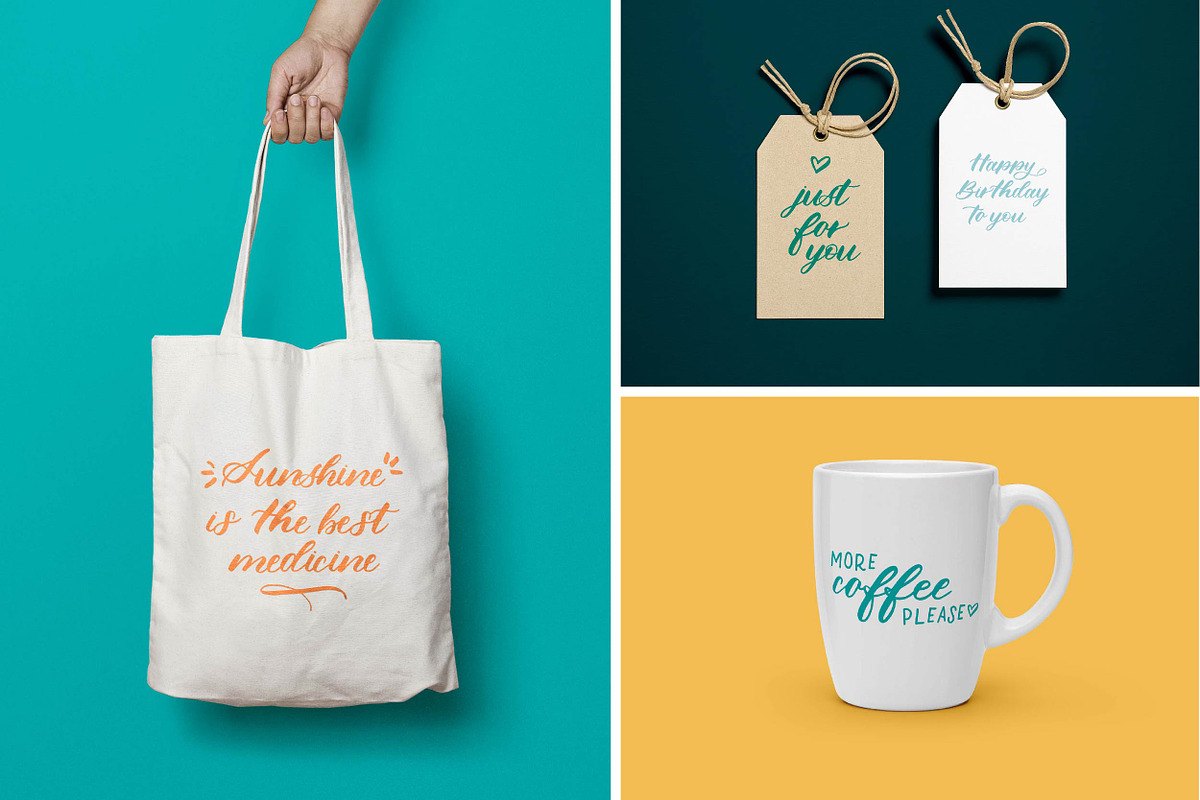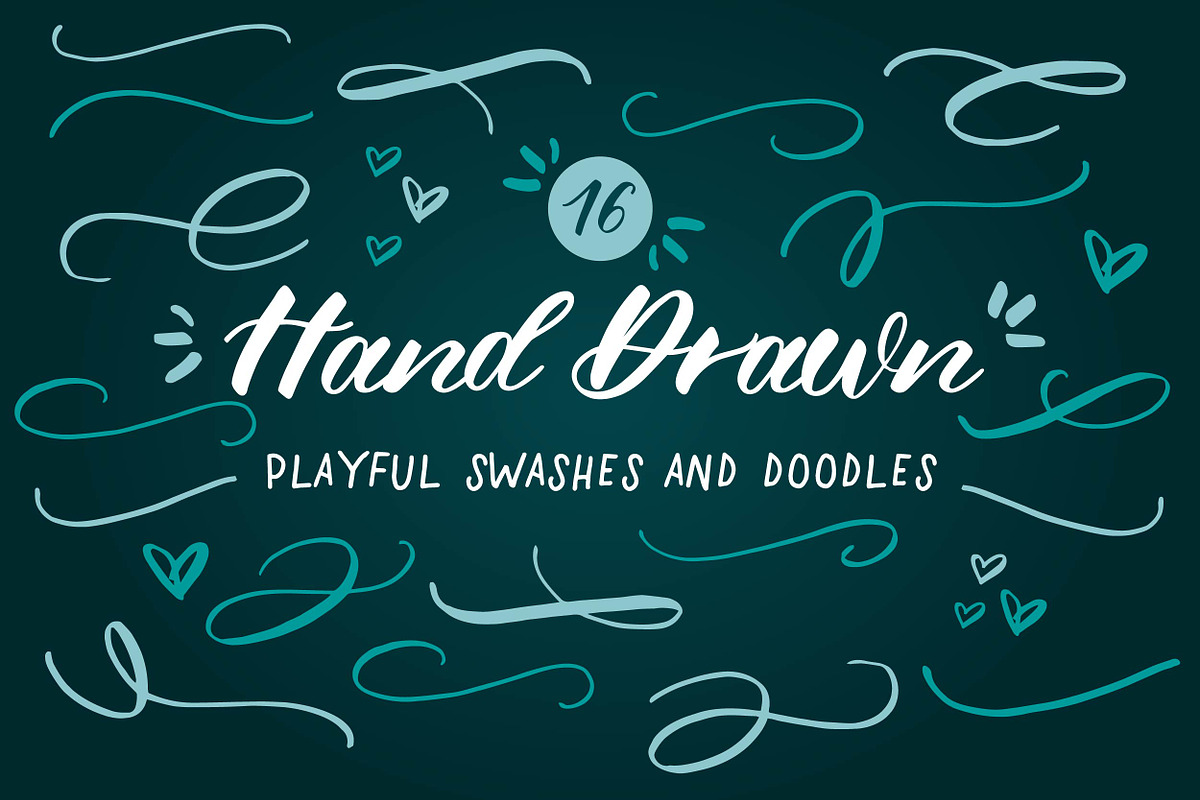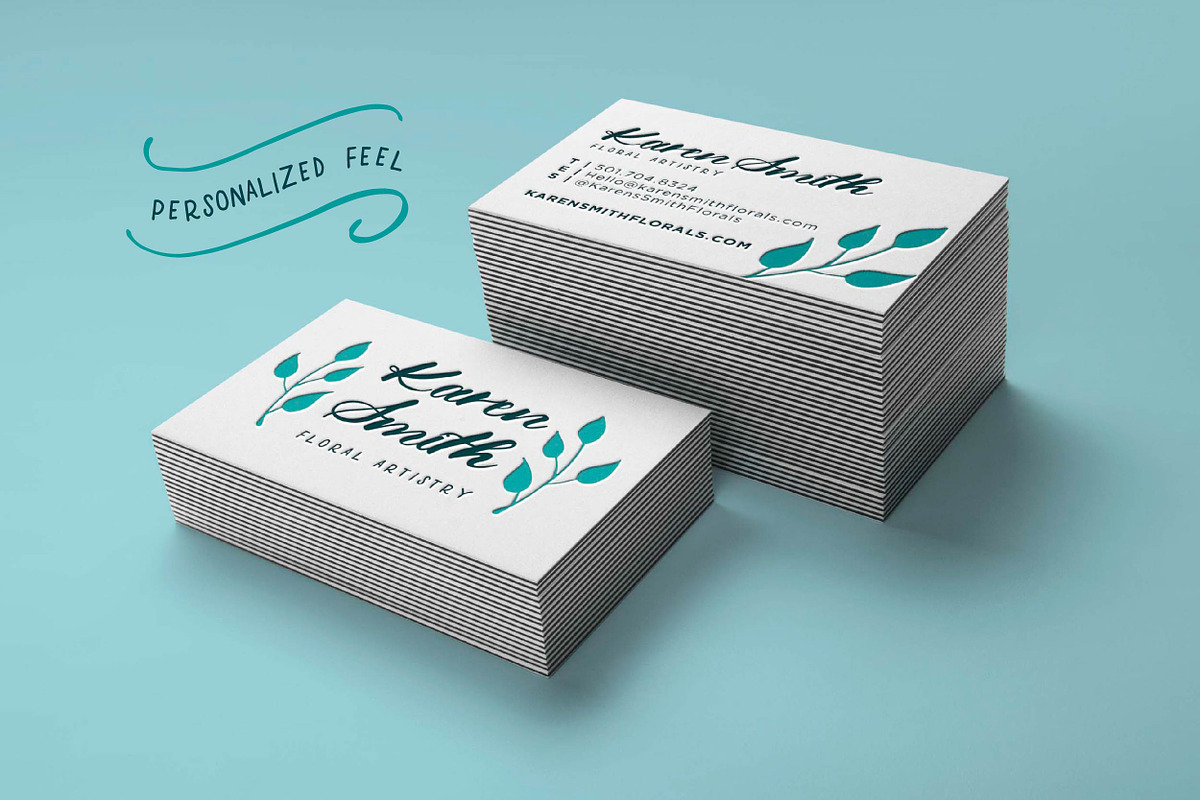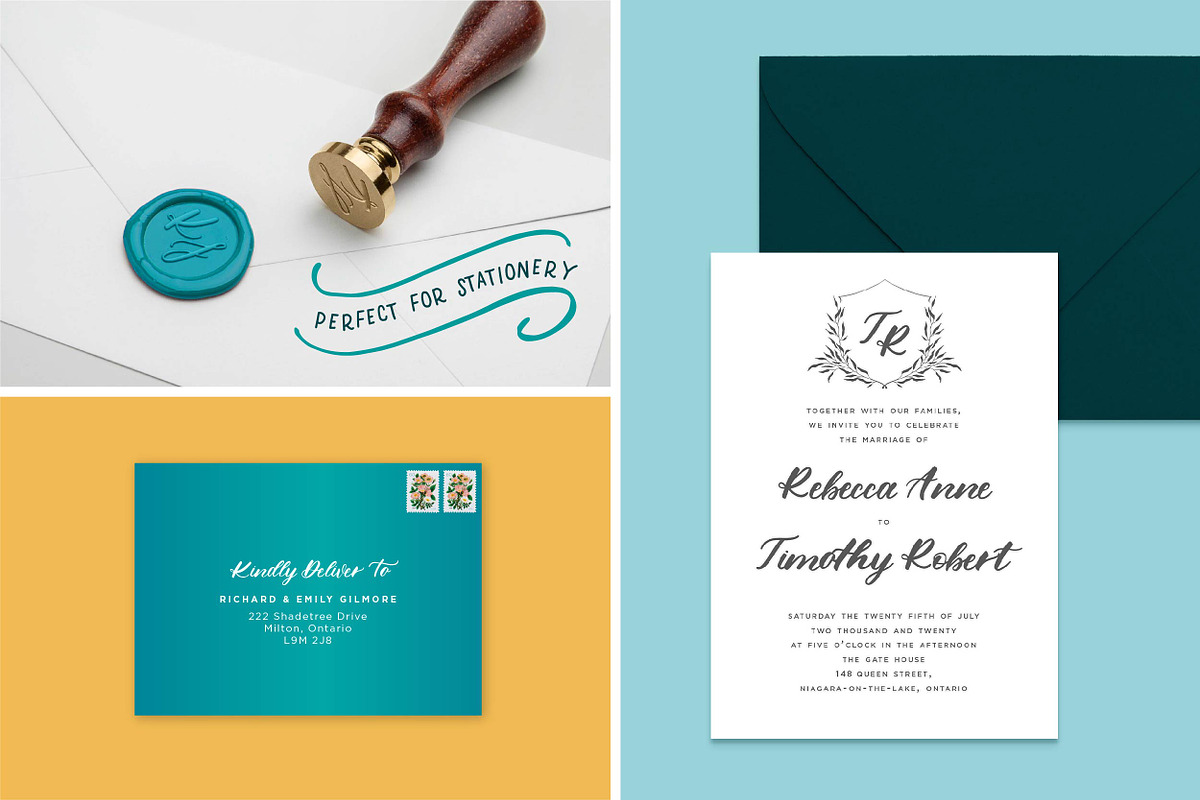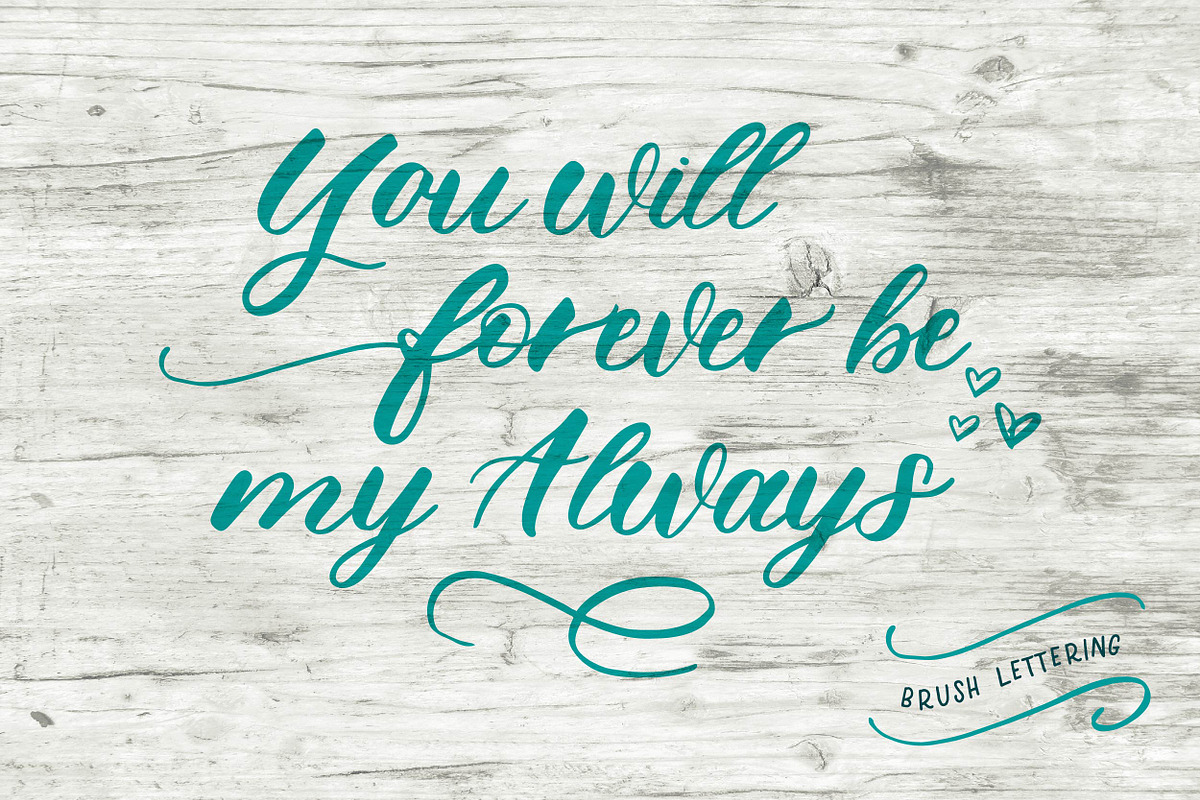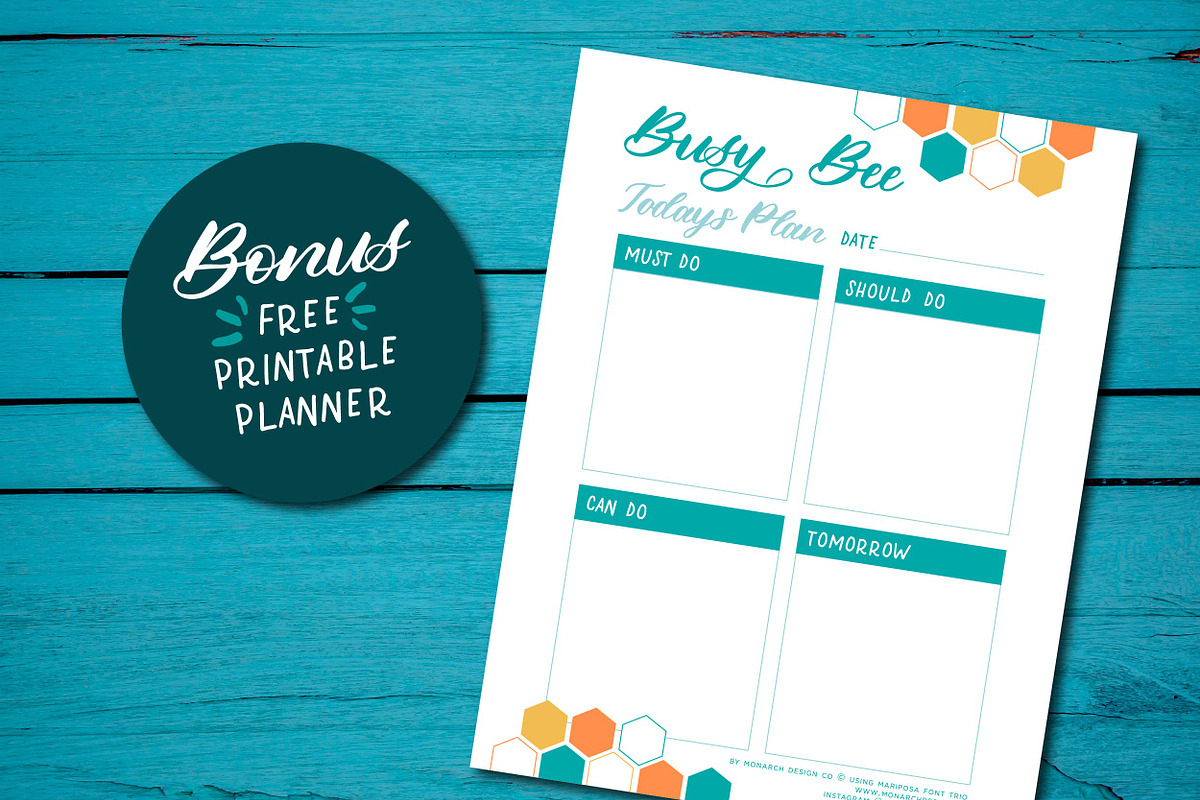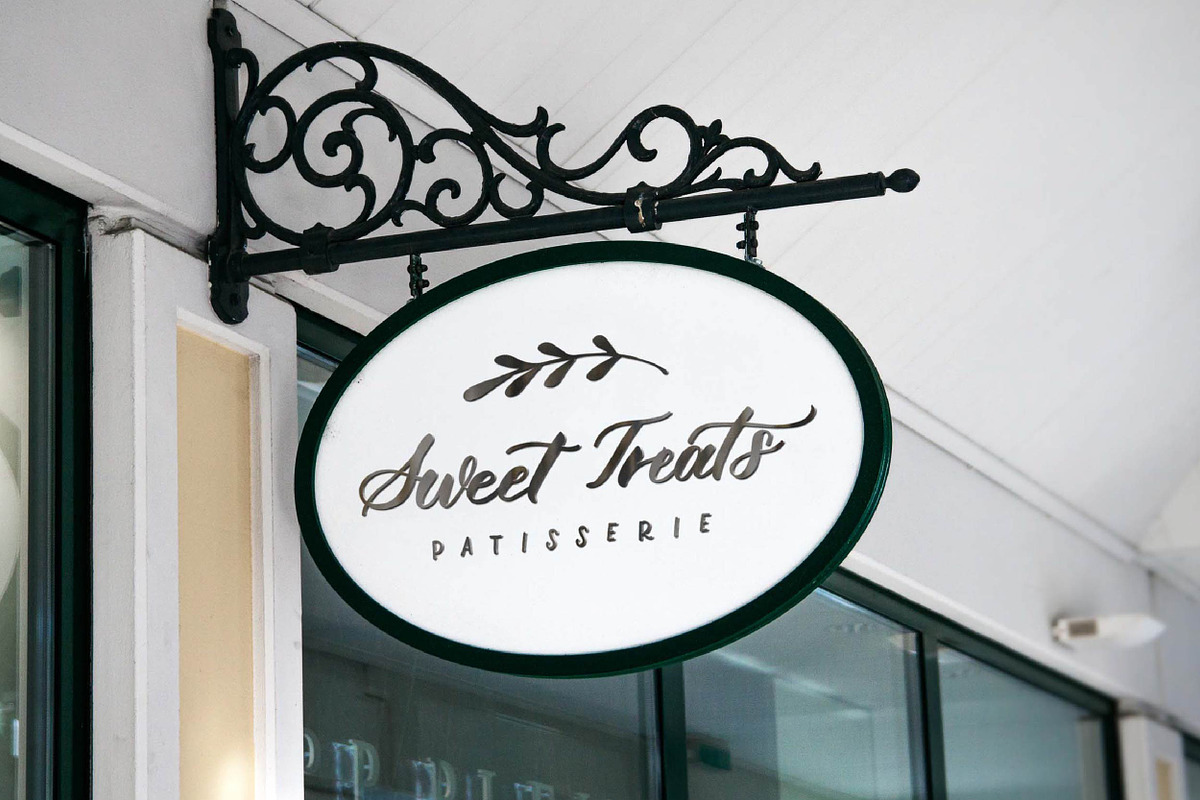
Mariposa Font Trio
Give your designs a hand drawn and whimsical feel with Mariposa Font Trio! Mariposa is a playful modern brush lettering font and includes a stylized upper and lower script font with unique alternates and ligatures, playful doodles and swashes and an all capitals version.
Perfect for stationery, greeting cards, branding, social media, packaging, magazine layouts, prints and more!
A full Script style (upper and lowercase)
26 Stylistic Alternates
A Symbols font with 16 playful doodles and swashes symbols.
Cute All Capitals 'Block Lettering' font